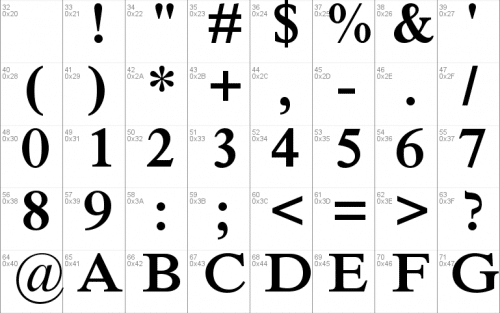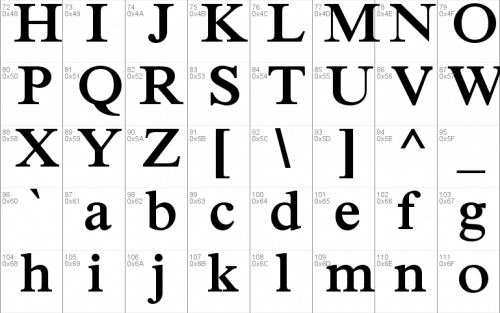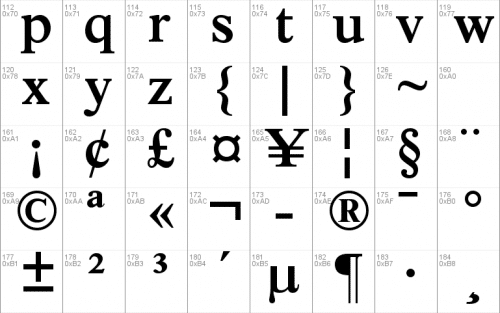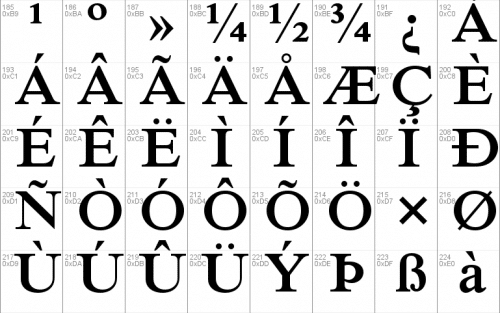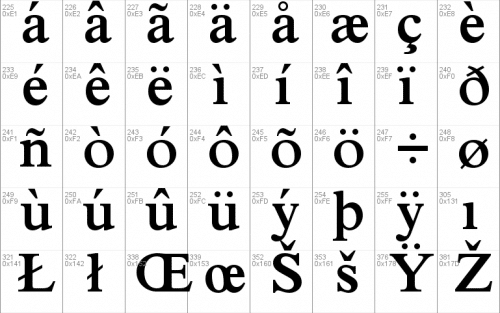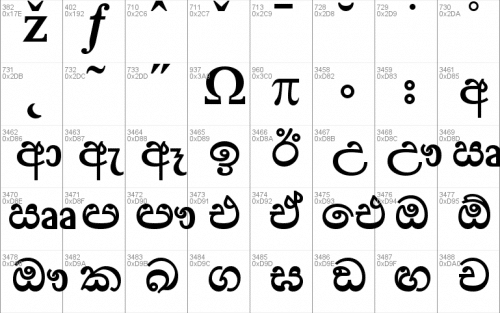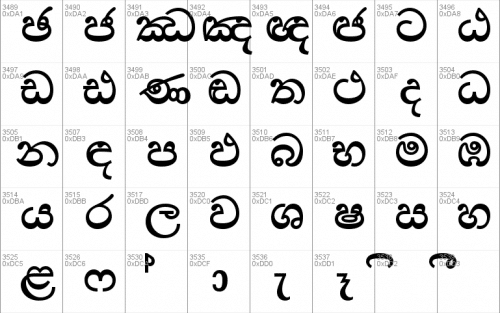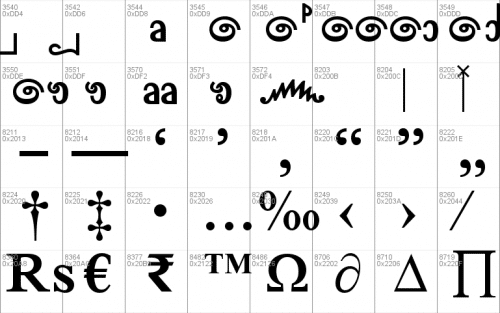
Iskoola Potha Font is Sinhala font (also called Singhalese), along with Tamil and English, are the native languages of Sri Lanka. Sinhala is the language of the Sinhalese, and descends from the Brahmi script. The Sinhala alphabet is found in Unicode Range 0D80 – 0DFF.
- Designer: Microsoft Corporation